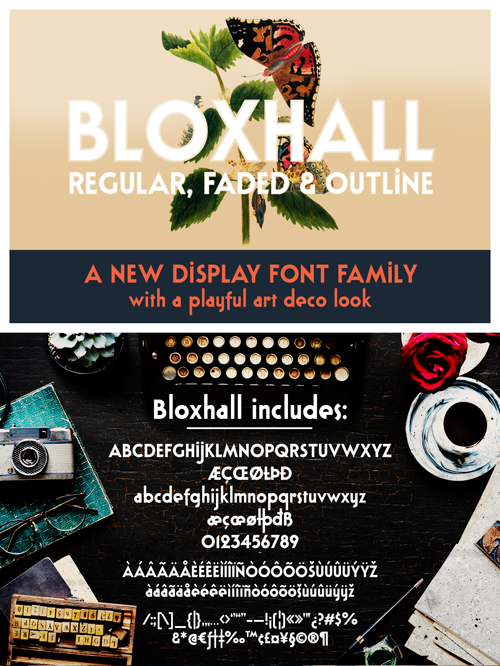
Bloxhall is an elegant art deco font family, in three styles, with: A-Z, a-z, 0-9 Accents Numbers and punctuation Outline, faded and layered versions, with an extra offset variation to make layering super easy Try it out for free (for personal use) with this sample version! For the full commercial version, please visit one of these links: https://www.anasfonts.com/ https://creativemarket.com/justlikethistrain?u=justlikethistrain http://www.revolge.com/shop/anas-fonts/ https://thehungryjpeg.com/anas-fonts/ https://www.fontspring.com/foundry/anas-fonts https://buyafont.com/designer/anas-fonts |